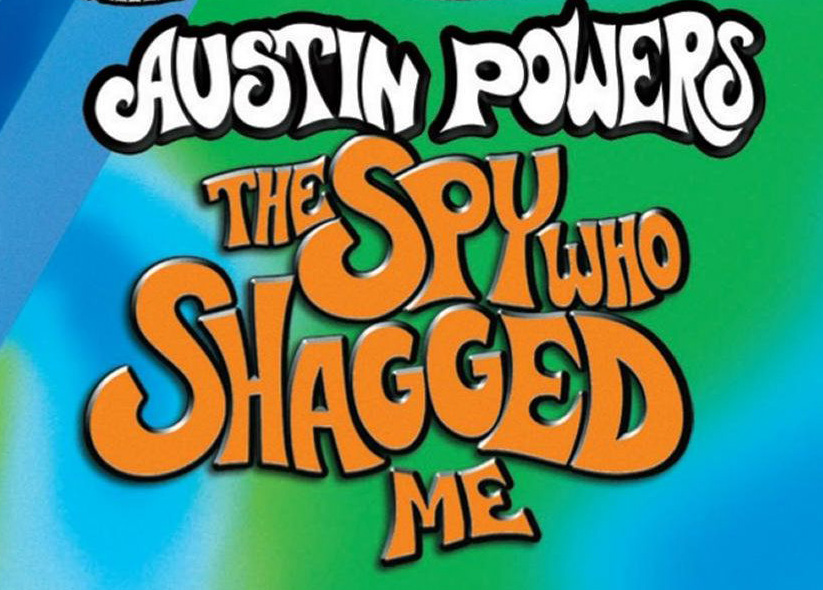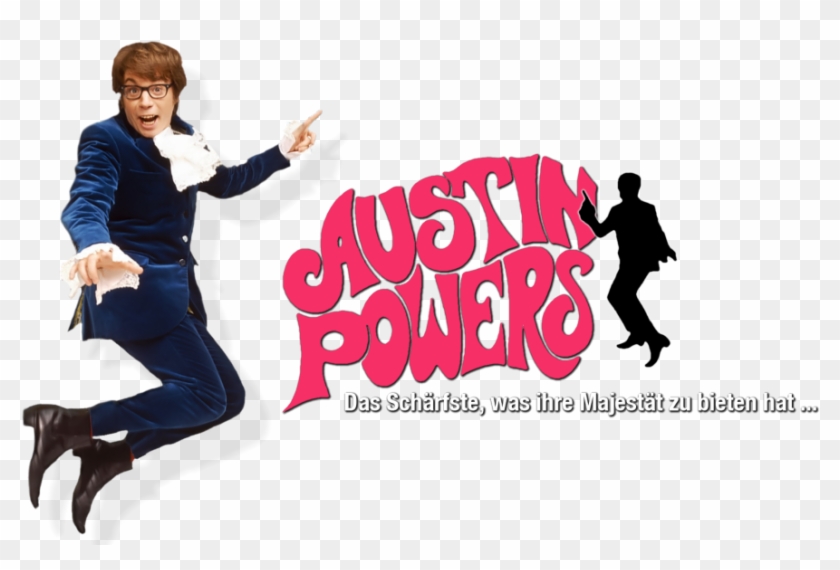
Austin powers font free download. Click to find the best 3 free fonts in the austin powers style. It’s true that the main focus of “dr. Free download of bratsy script font.
(cookies must be enabled in your browser.) share austin bold free font. Austin bold truetype font download free austin bold font (79 kb) austin bold font custom preview tool. First font is bell bottom laser, but very distorted using adobe illustrator or photoshop.
Free download austin powers logo font. Let's see, both are bad guys, both have a cat, bo. As made famous by the austin powers movies.
Austin powers is an american comedy film. It’s a high contrast design with slightly condensed letterforms. Every font is free to download!
Austin is a serif typeface designed by paul barnes and published through commercial type in 2007. Austin powers font, download austin powers.ttf truetype or.zip free free windows fonts for donwload Download the free font replicating the title logo from the movie austin powers and many more at the original famous fonts!
The font is free for personal use only and you can download the font. Austin powers is an american comedy film. These are free for personal use and you should contact the creator before using.
Austin powers is an american comedy film. 3 free fonts in the topic of austin powers. Our marketplace allows artists to register and list their fonts for sale and include them in font bundles and deals.
The font used for the film logo is very similar to action is designed by brain easters font co. The font is free for personal use only and you can download the font. The american film director and screenwriter and it is the first installment in the austin powers series.
Free download of actionis font. The zip file says the font is from 1998 years before kill bill and this typeface has become one of the most popular freeware fonts on the net and is often nicknamed the austin powers font due to its obvious 60s feel i doubt its anything to do with kill bill this font was very popular years before that due to the 1960s revival in the late 90s. The the austin font has been downloaded 5,023 times.